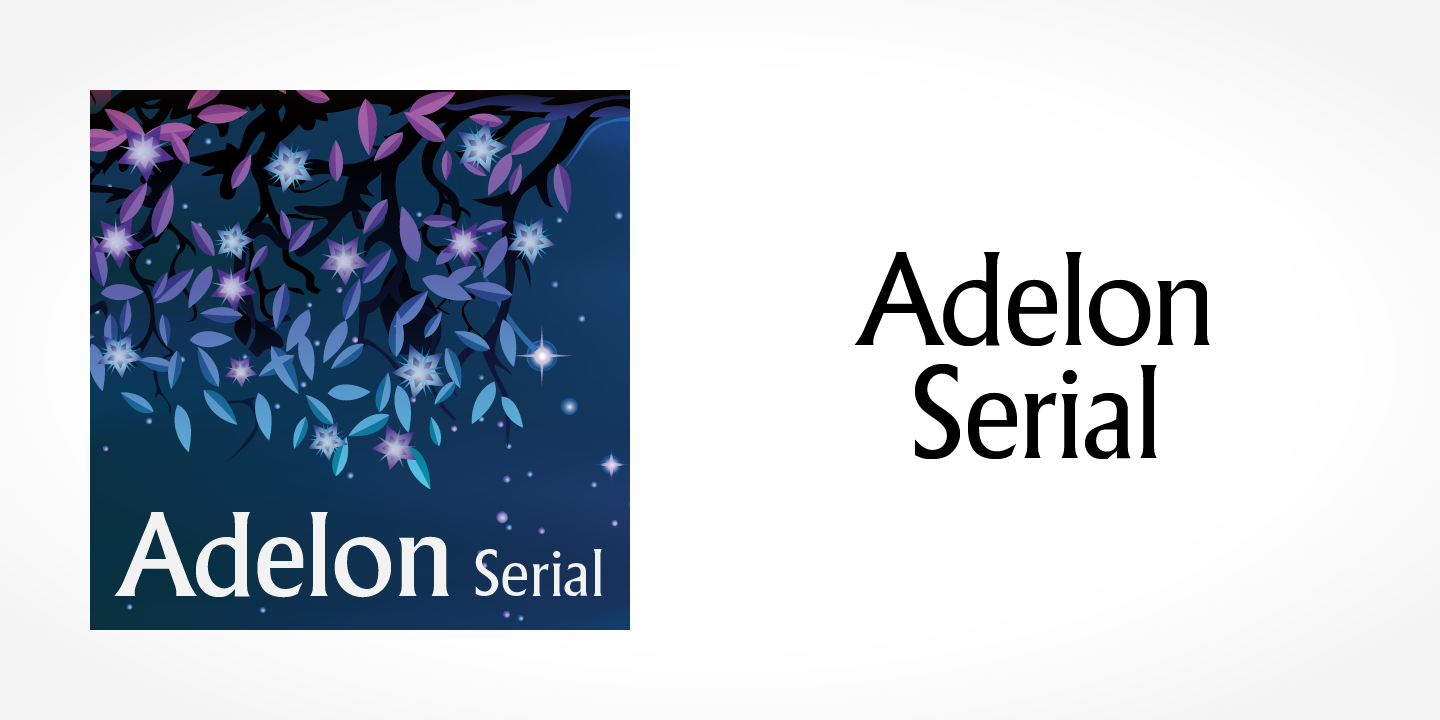
Adelon Serial Font is perfect for serialized publication designs, numbered edition materials, sequential product branding, systematic documentation projects, serialized novel covers, numbered collectible packaging, sequential art publications, and organized design projects that require systematic typography with serial numbering character and sequential organization sophistication.
This Adelon Serial Font is exciting because it embodies the concept of systematic serialization with methodically crafted letterforms that convey order and sequential progression, featuring organized character construction that reflects the importance of numbering systems while maintaining exceptional readability for documentation applications and systematic communications.
The Adelon Serial Font family includes systematic weights with sequential styling, complete character sets with organized uppercase and lowercase letters, serial numerals, methodical punctuation, and numbering symbols that provide comprehensive typography solutions for serialized and systematic design projects requiring authentic sequential aesthetics and organized appeal.
Perfect for creating systematic communications and serialized brand identities, Adelon Serial Font Free Download delivers the organized typography that transforms text into clear expressions of sequential order and systematic excellence. This distinctive typeface captures the essence of methodical organization and serial progression, making it essential for projects celebrating systematic design, sequential numbering, organized documentation, and any design requiring systematic character with authentic serial sophistication and timeless organizational appeal that ensures clarity and methodical presentation in every numbered sequence.